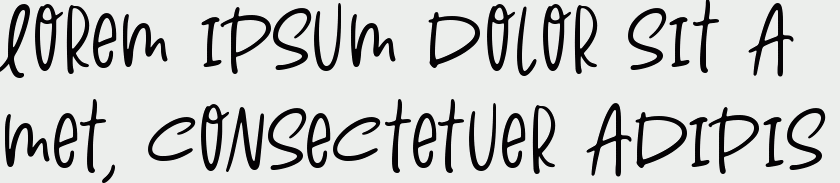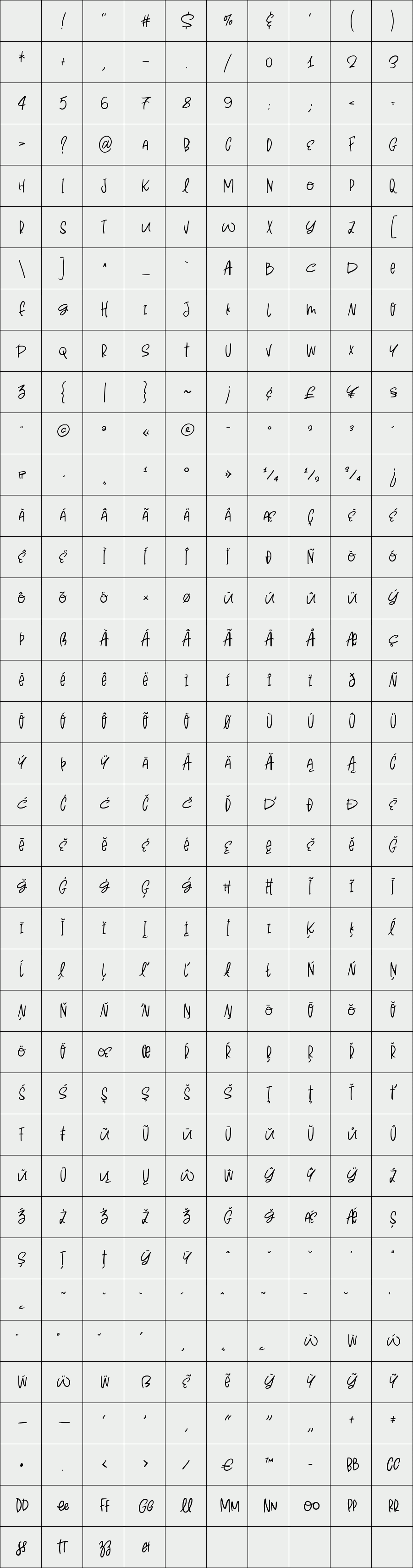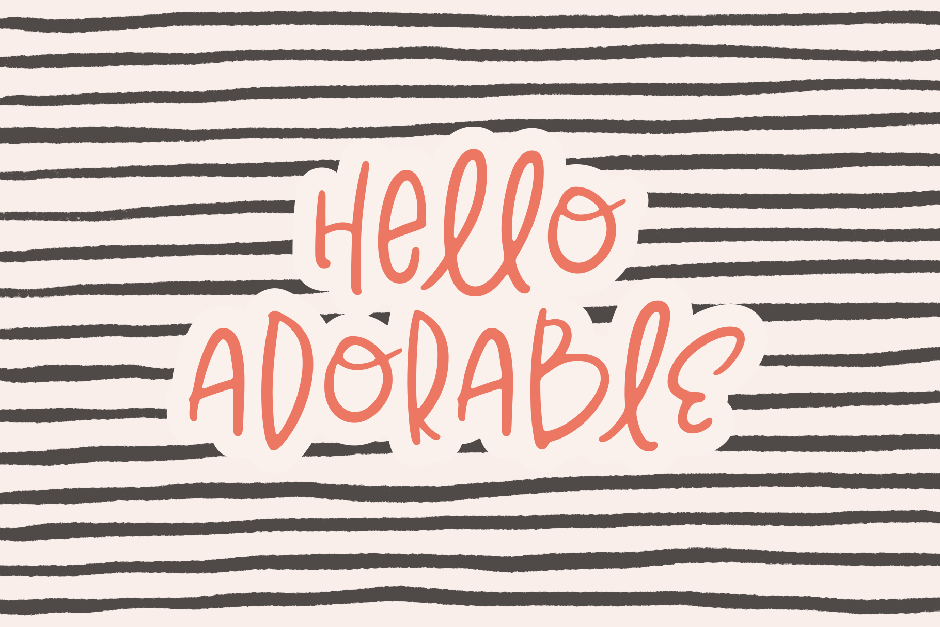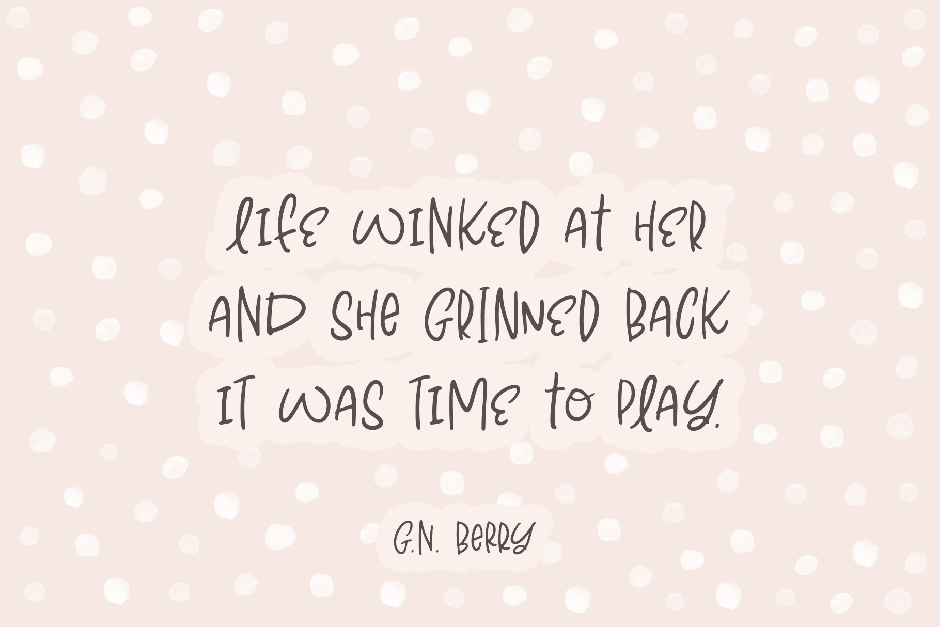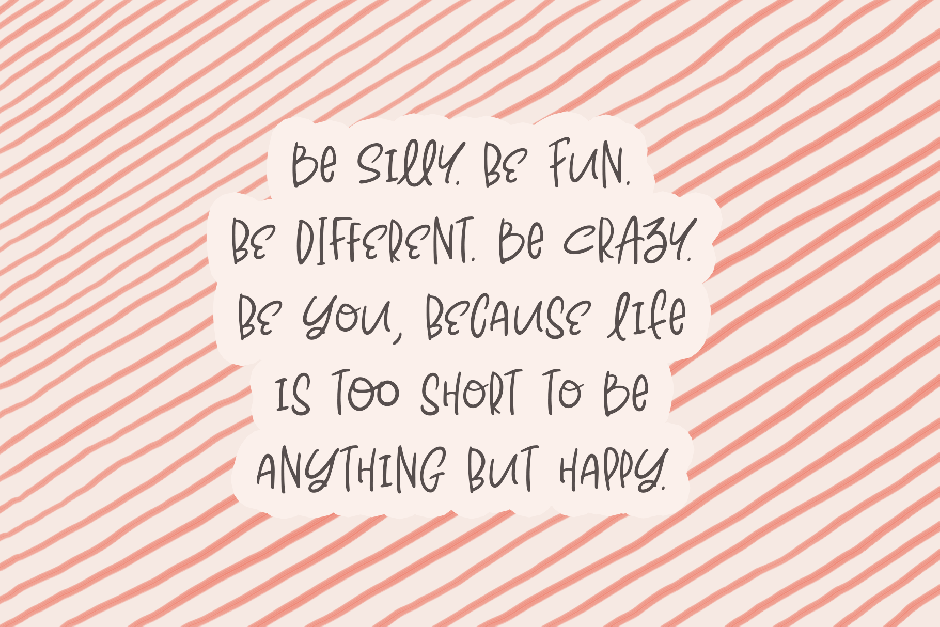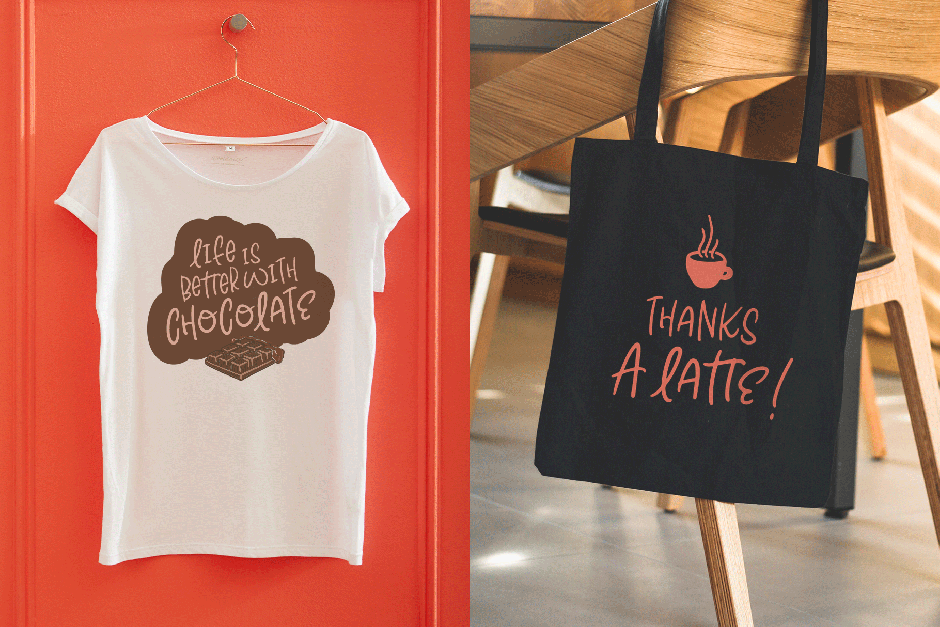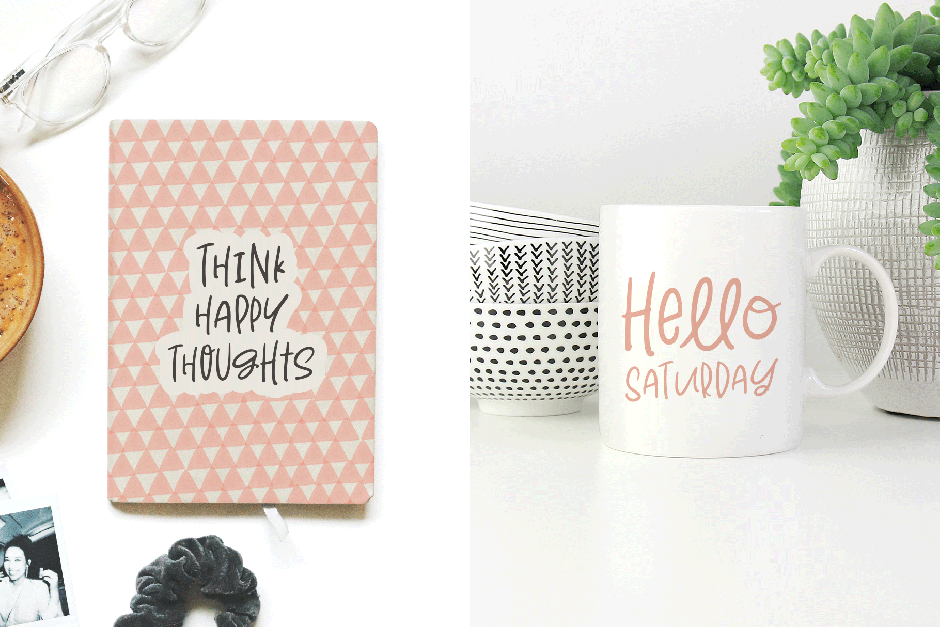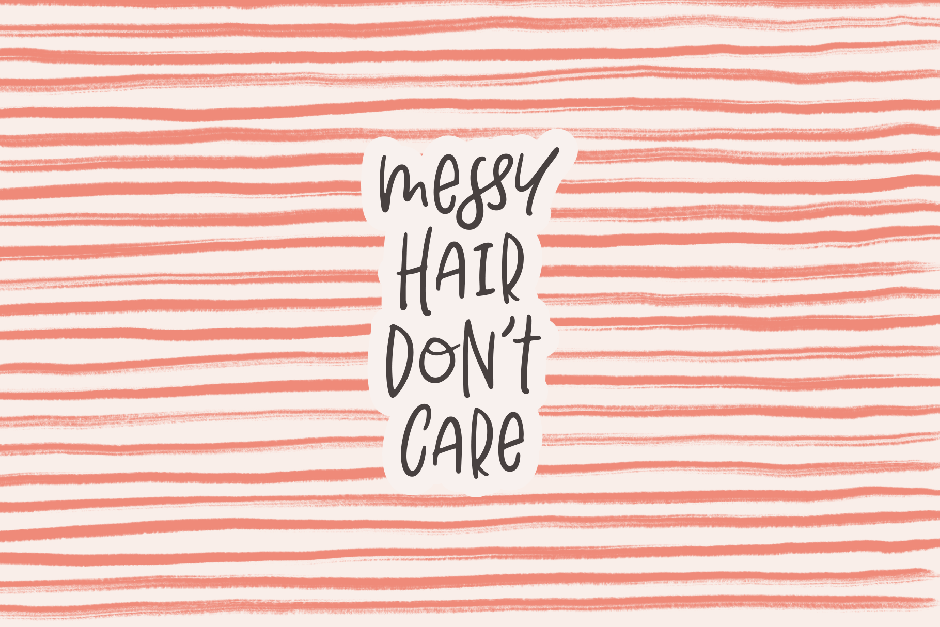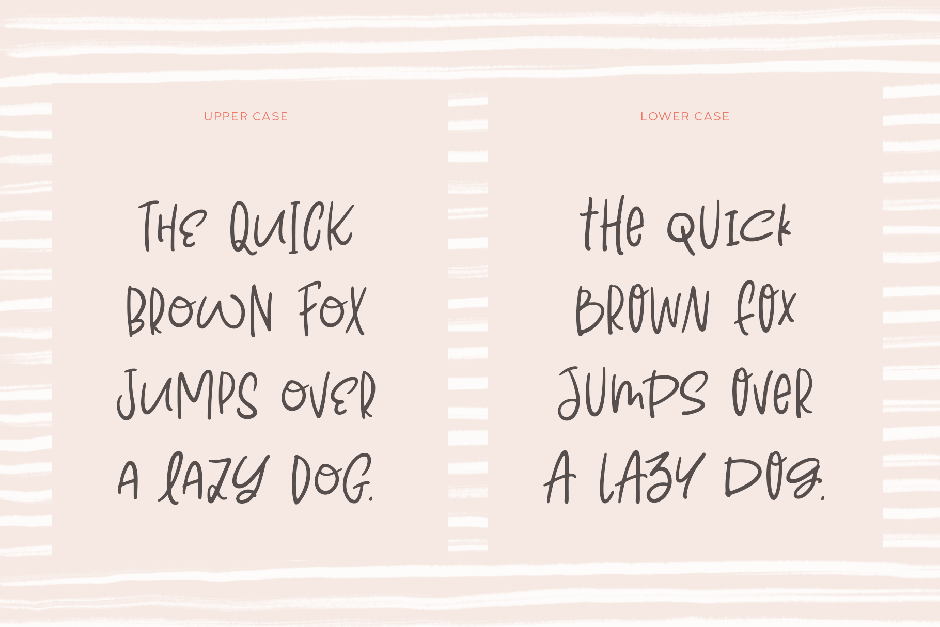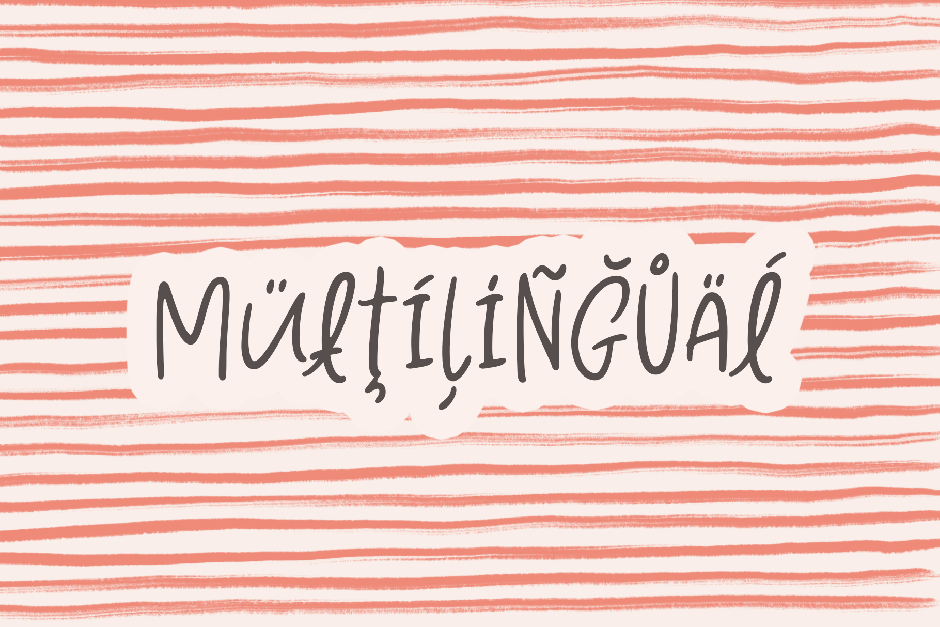
Hello Adorable
Hello Adorable is a cute and playful, mixed case font with smooth edges. It's an entirely handwritten display typeface that has a fun and carefree attitude and works really well with quotes, social media posts, headlines, etc.
FEATURES
- Mixed case letters - mix and match upper and lowercase alphabet
- Smooth outlines suitable for cutting machines
- 15 Ligatures
- Over 380 glyphs
- Multilingual Support